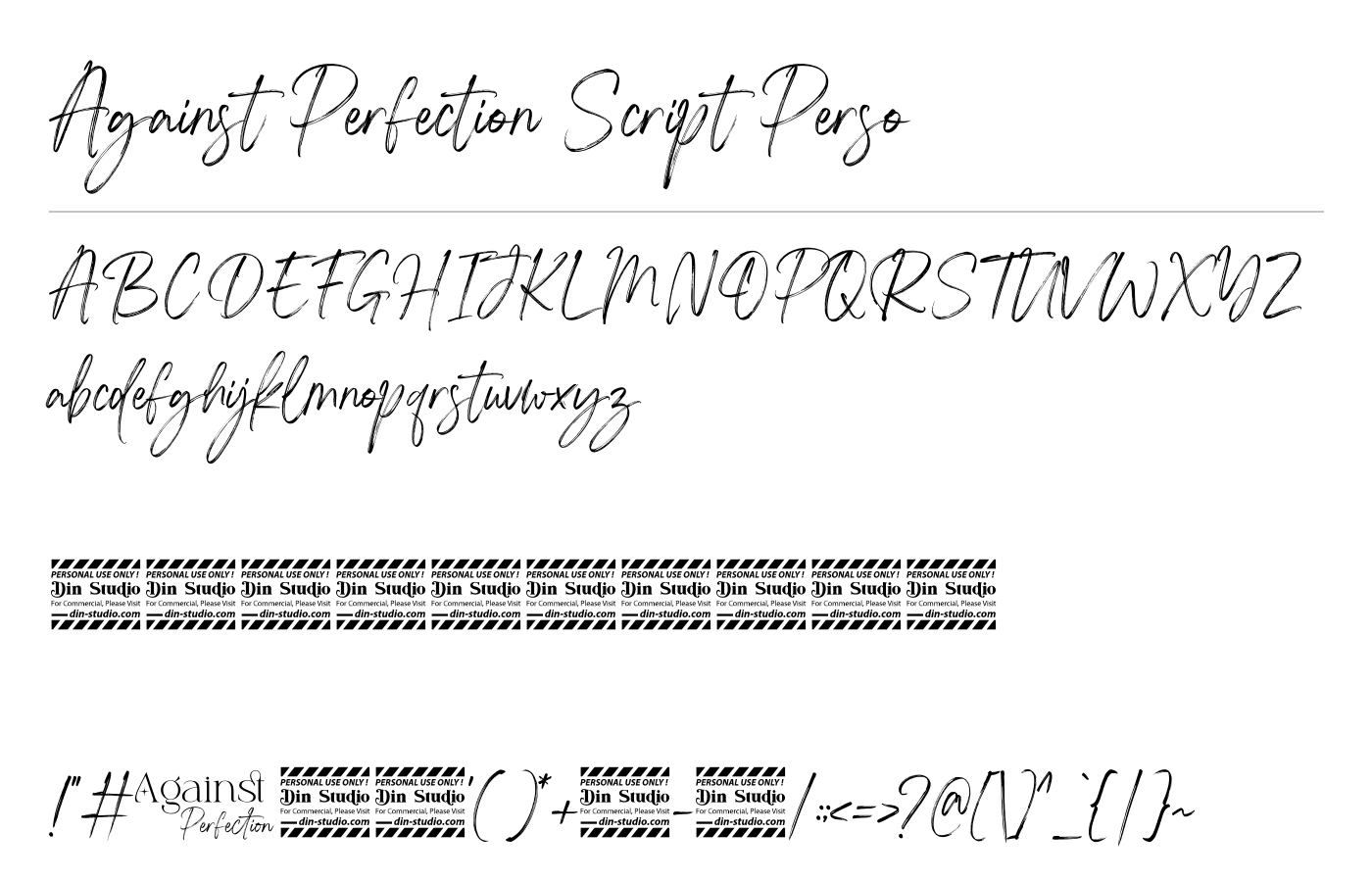
Against Perfection Script Perso is a delicate, hand-drawn script font that exudes a natural, imperfect charm with its slender, slightly rough strokes and loose, flowing letterforms. Its elegant yet casual style makes it perfect for creative projects like invitations, branding, or editorial use where a personal, artistic touch is desired. This font works well in settings that call for a human, approachable feel while maintaining a sense of sophistication.
Against Perfection Script Perso Font
About Against Perfection Script Perso Font
| Font family | Against Perfection Script Perso Font |